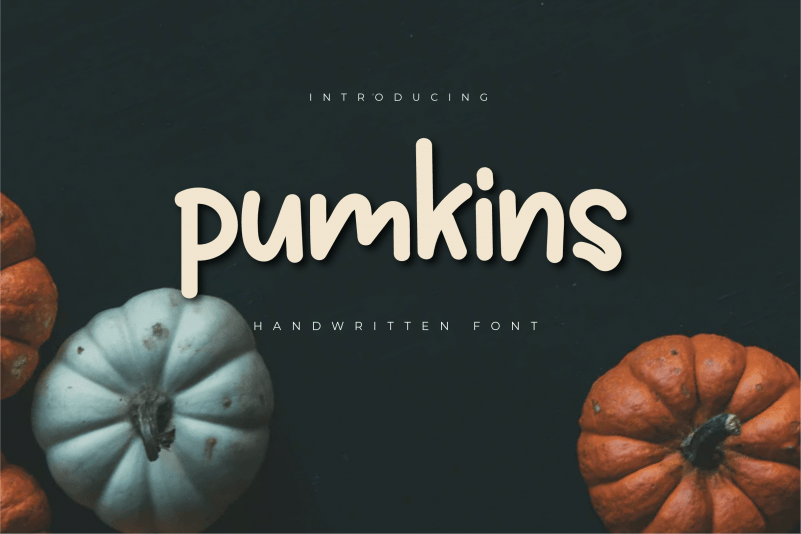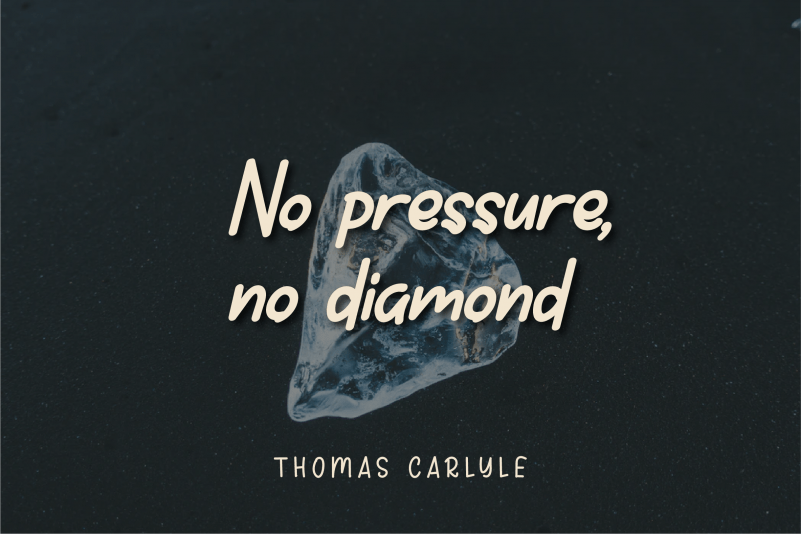
Pumkins Script Font
Pumkins Script Font is a magical scipt typeface carefully created with a touch of elegance. This is a beautiful combination of timeless elegance and authentic calligraphy. It features an incredibly classic style, while still keeping a friendly feel. Pumkins is the perfect font for making original and outstanding designs.